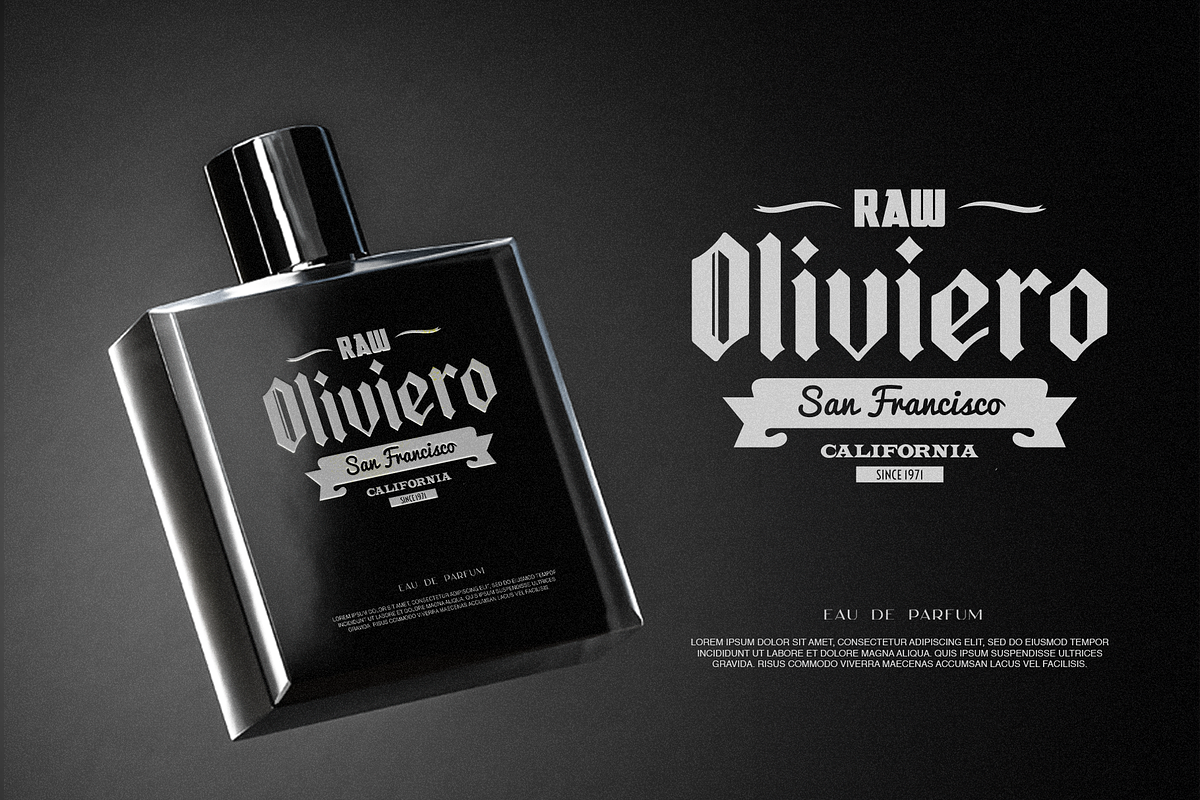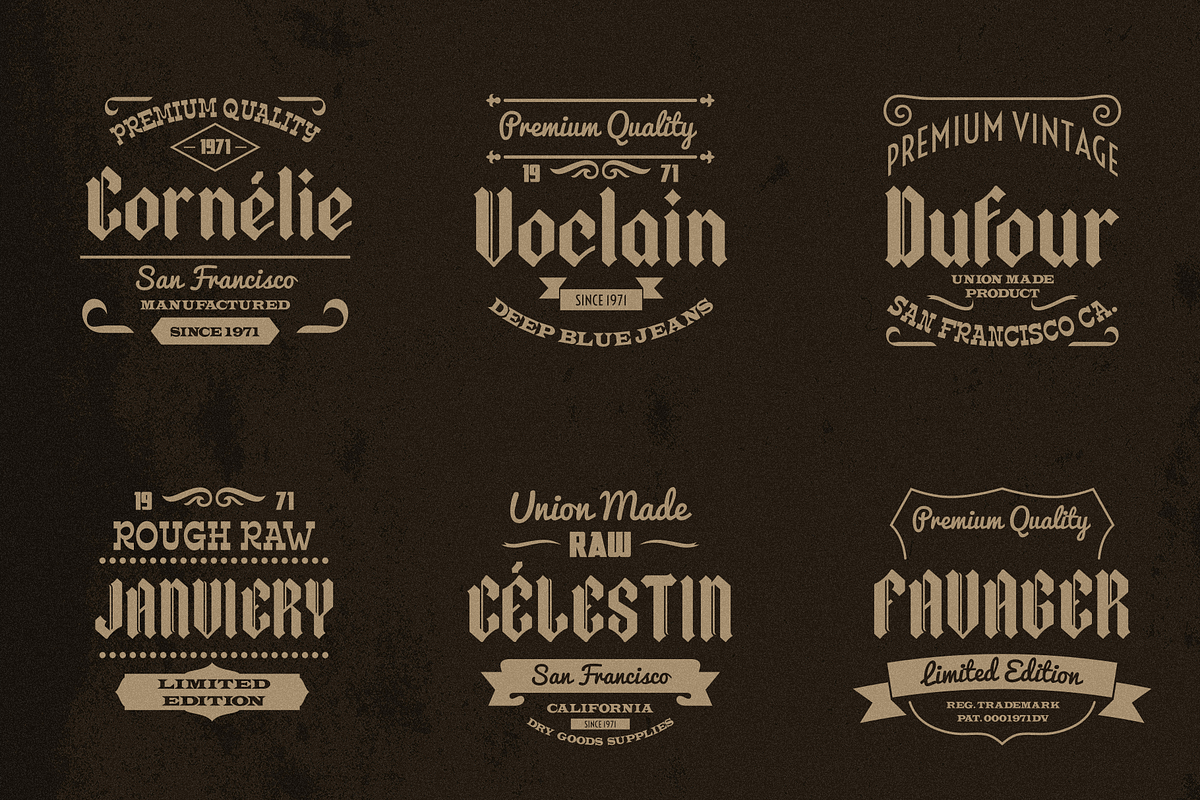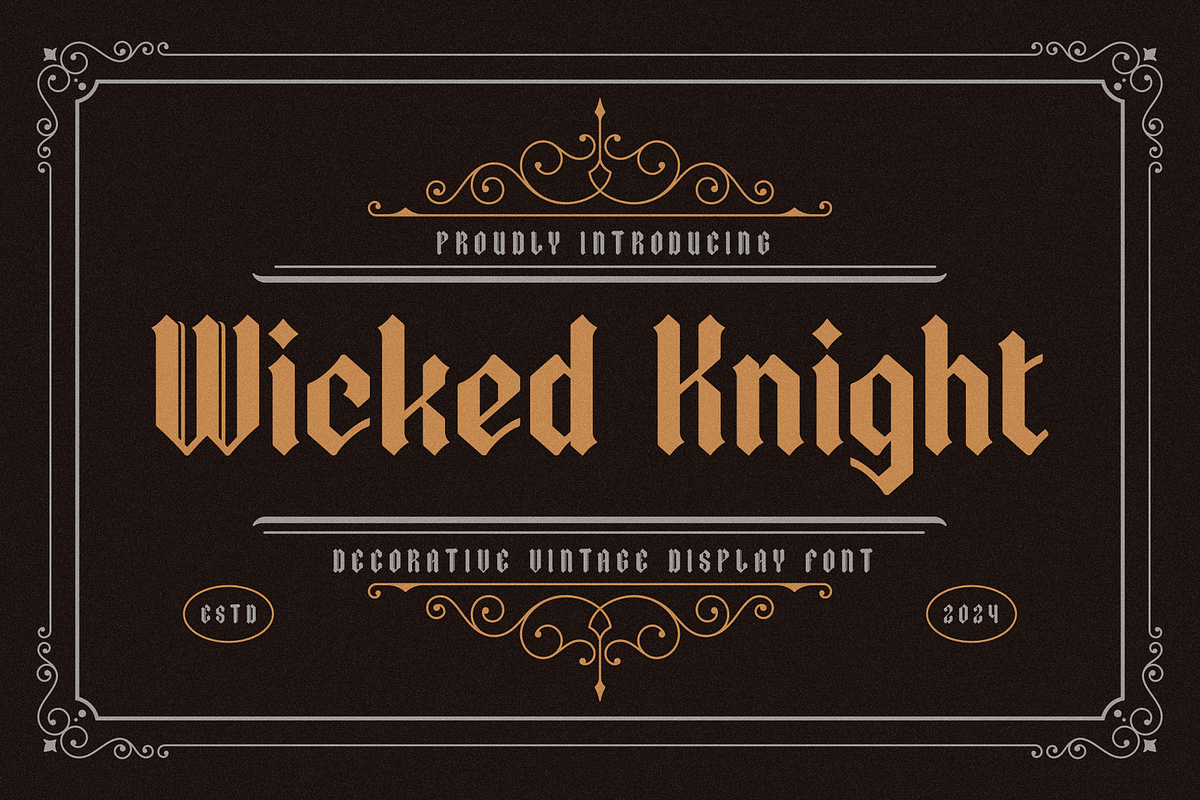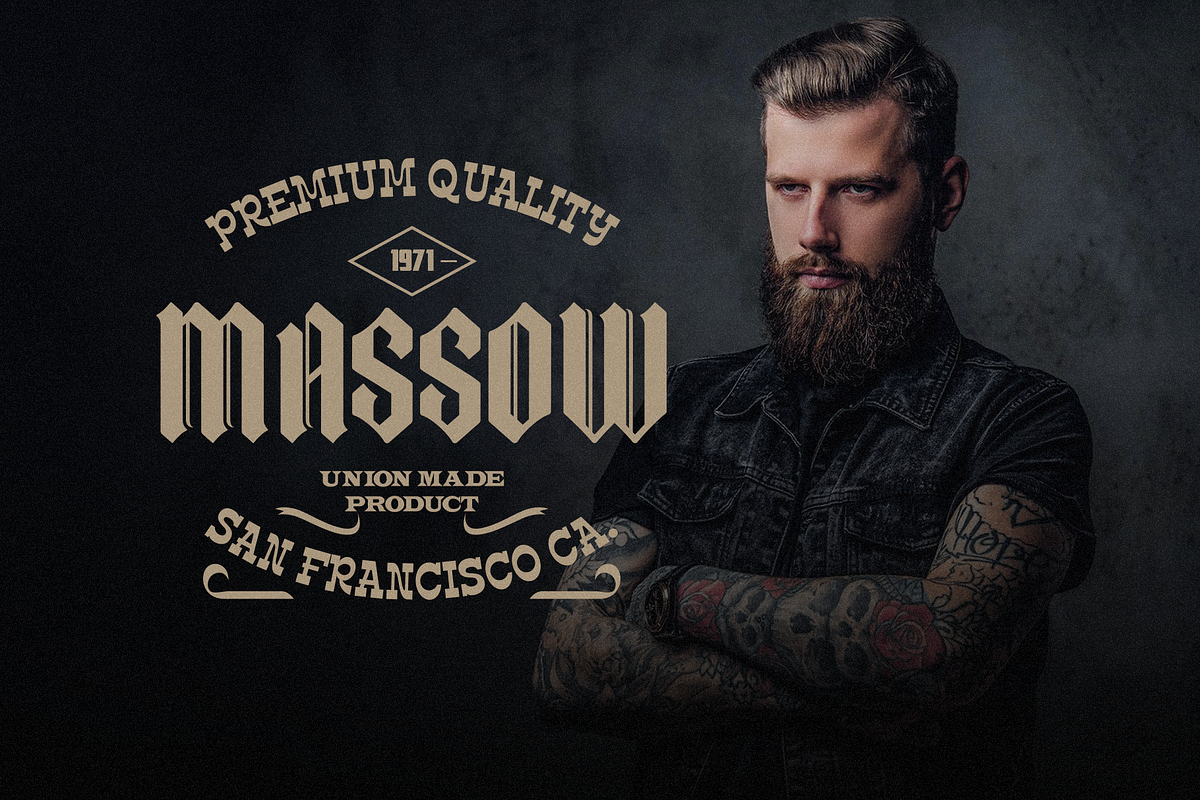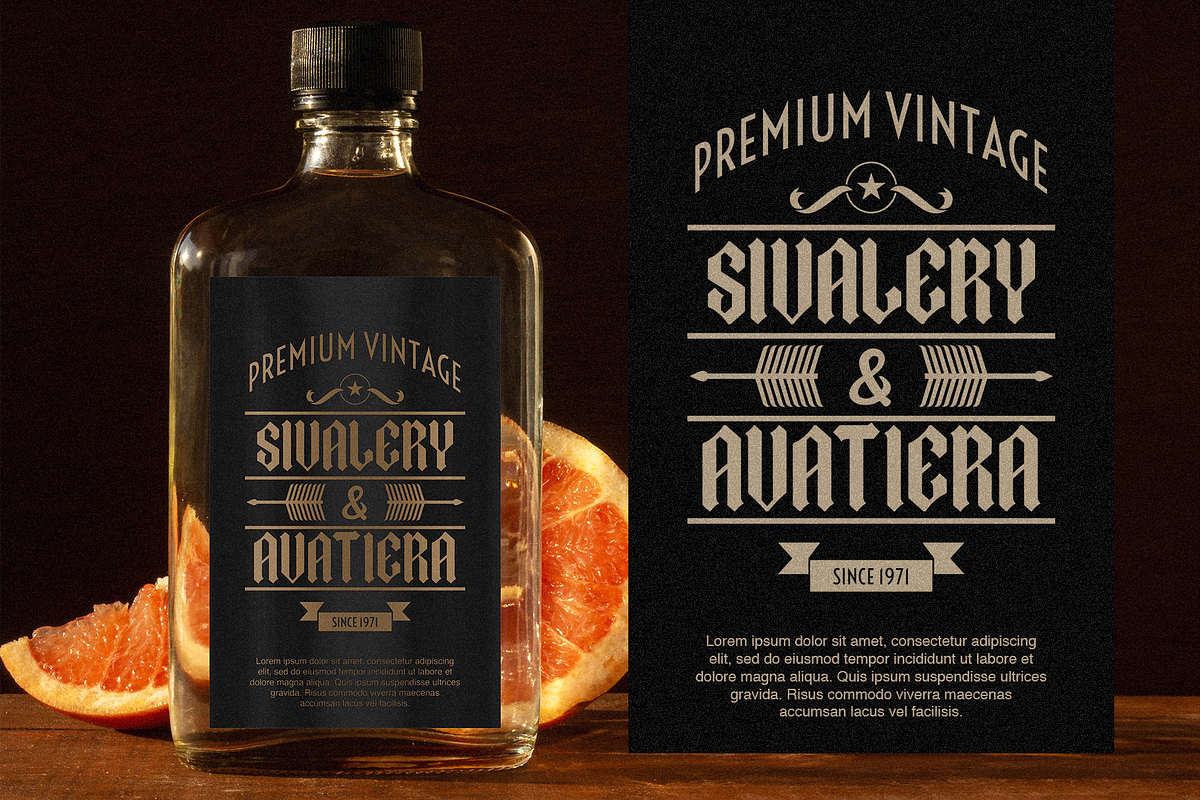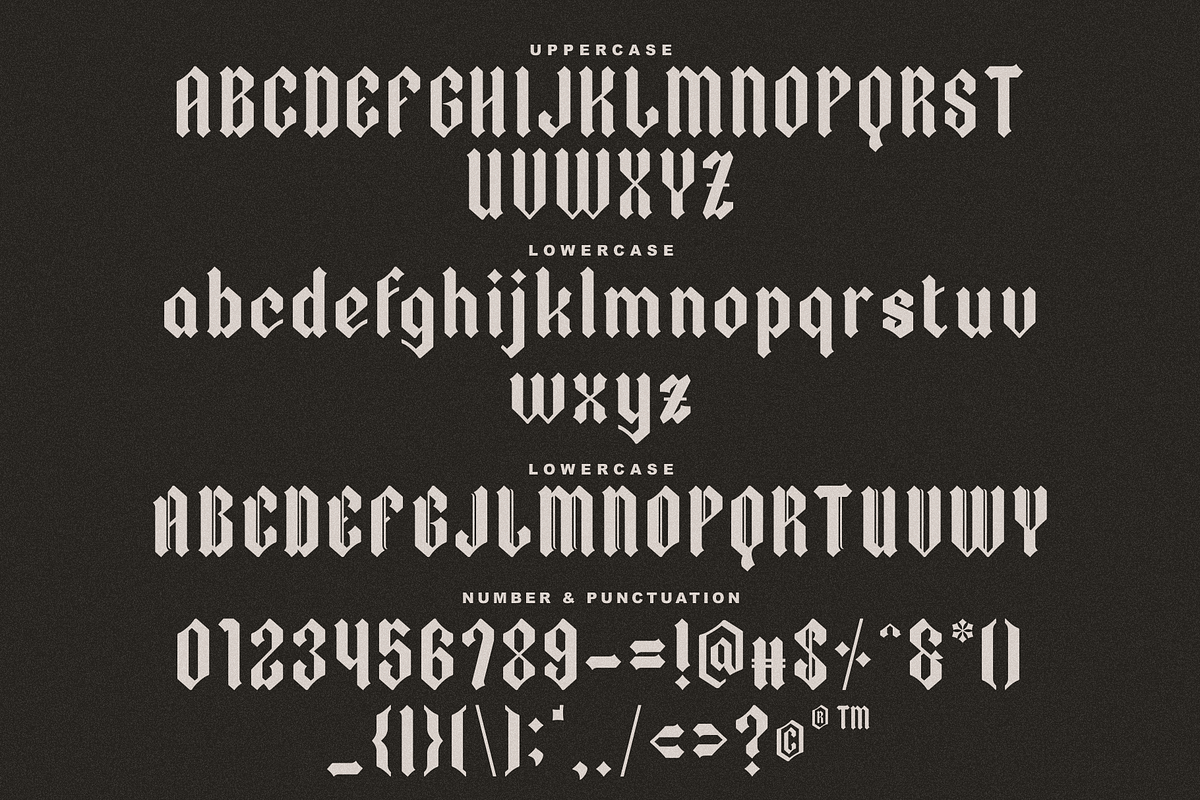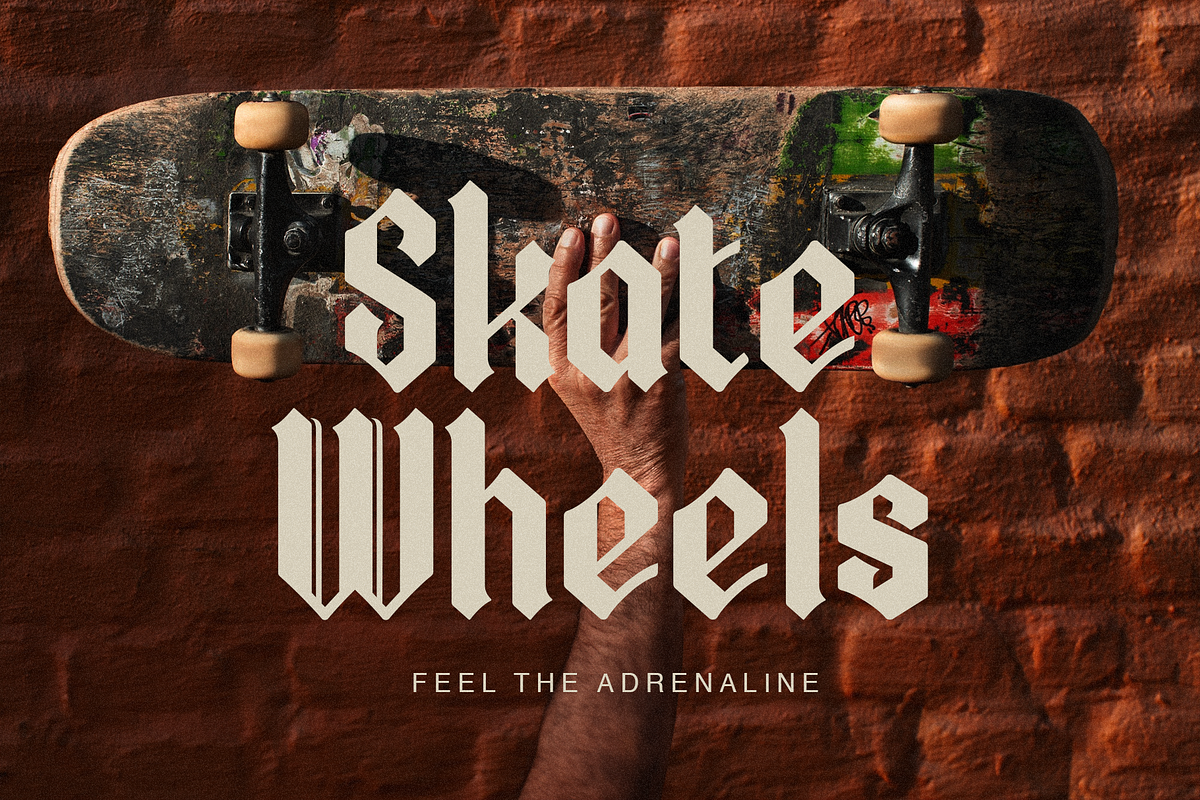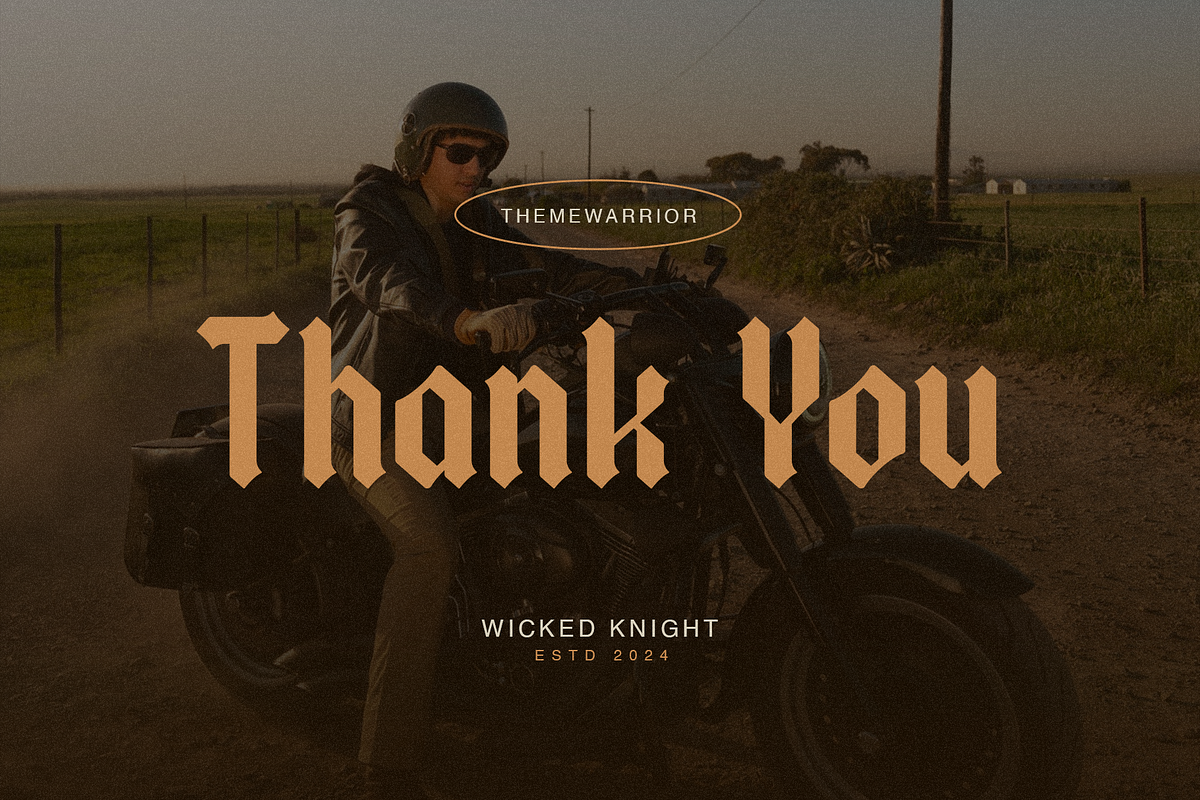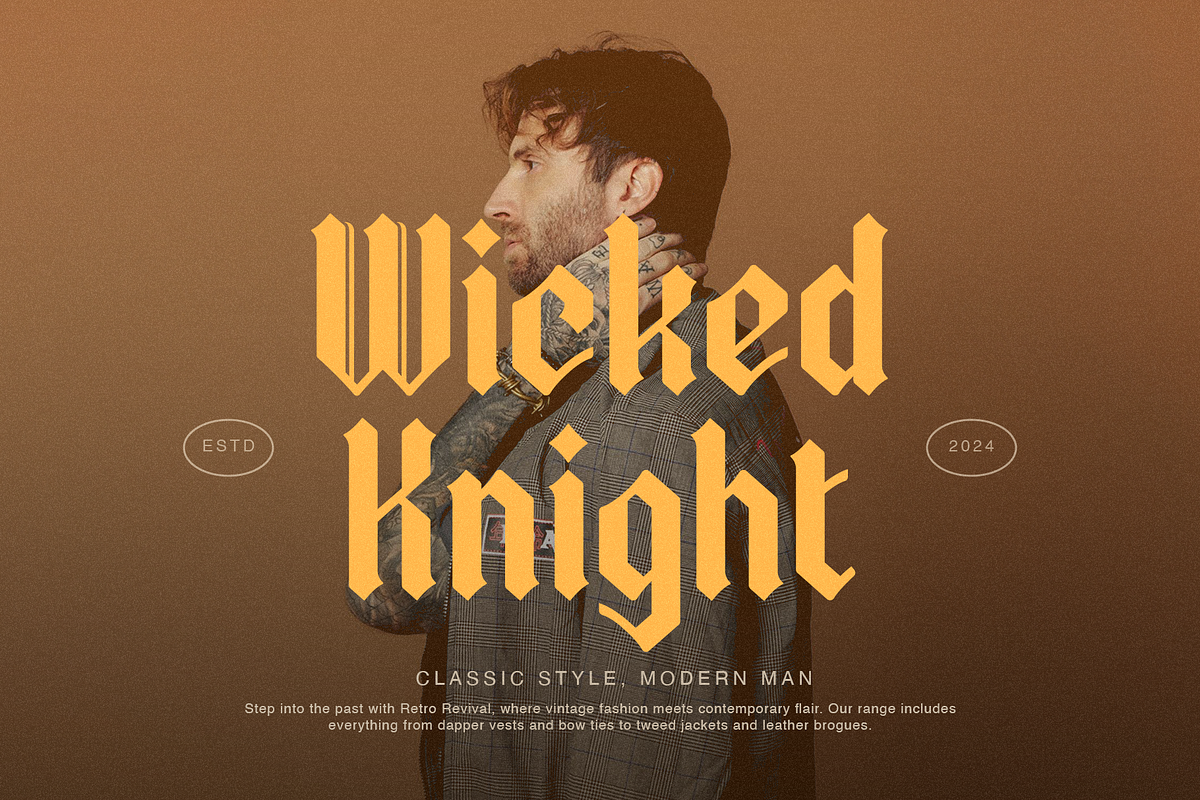
Wicked Knight – Blackletter Font
Wicked Knight is a bold and eye-catching blackletter font that is perfect when used for adding a touch of gothic feel to whatever you're designing. The font comes with sharp edges and dramatic style, Wicked Knight will stand out when used in posters, logos, tattoos, and more.